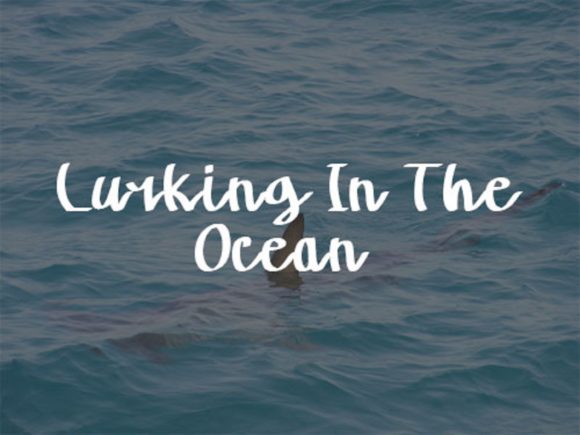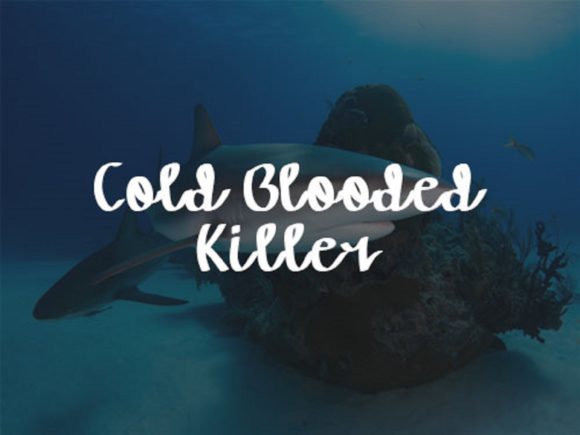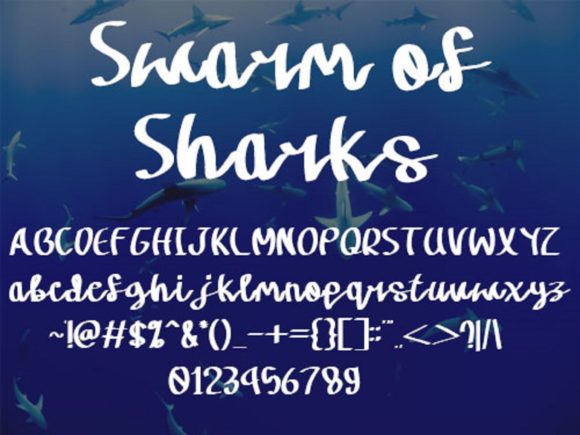
About Swarm of Sharks Font
Swarm of Sharks is a cool and quirky handwritten font. It features unique and interestingly designed characters that will make your creations stand out.